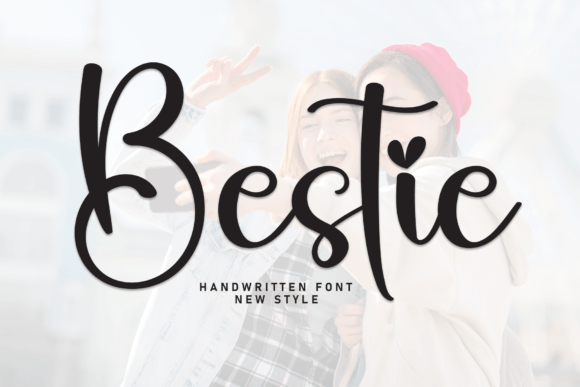
The Bestie Font: A Sweet and Friendly Companion for Your Design Journey
I’ll never forget the moment I stumbled upon the Bestie font. I was working on a project for a client’s wedding invitation, and I was struggling to find the perfect handwritten font that would capture the sweet and playful tone of the occasion. As I scrolled through my font library, I chanced upon Bestie, and it was love at first sight! ✨ The natural and unique style of this font instantly won me over, and I knew I had found the perfect companion for my design journey.
• ✨ Sweet and friendly vibe: Bestie has a warm and approachable feel that’s perfect for projects that require a personal touch.
• ✅ Highly versatile: This font can be used for a wide range of designs, from wedding invitations to social media graphics, and even craft projects.
• 🎉 Unique character: Bestie’s natural and handwritten style gives it a distinctive personality that sets it apart from other fonts.
While Bestie is an amazing font, there are a few things to keep in mind: 🤔
• ⚠️ Limited use in very formal contexts: Bestie’s playful nature makes it less suitable for very formal or professional projects.
• ⚠️ Some letters may require adjusting: As with any handwritten font, some letters may need to be adjusted to ensure proper spacing and alignment.
The Story Behind Bestie: A Designer Inspiration
Bestie was created with the intention of crafting a font that would bring a smile to people’s faces. Inspired by the imperfections and uniqueness of handwritten text, the designer aimed to create a font that would feel approachable and friendly. Whether you’re a designer, crafter, or creative hobbyist, Bestie is sure to become your new best friend! 😊
Q: What makes Bestie a great choice for craft projects?
A: Bestie’s unique and handwritten style makes it perfect for craft projects like card making, scrapbooking, and DIY signs.